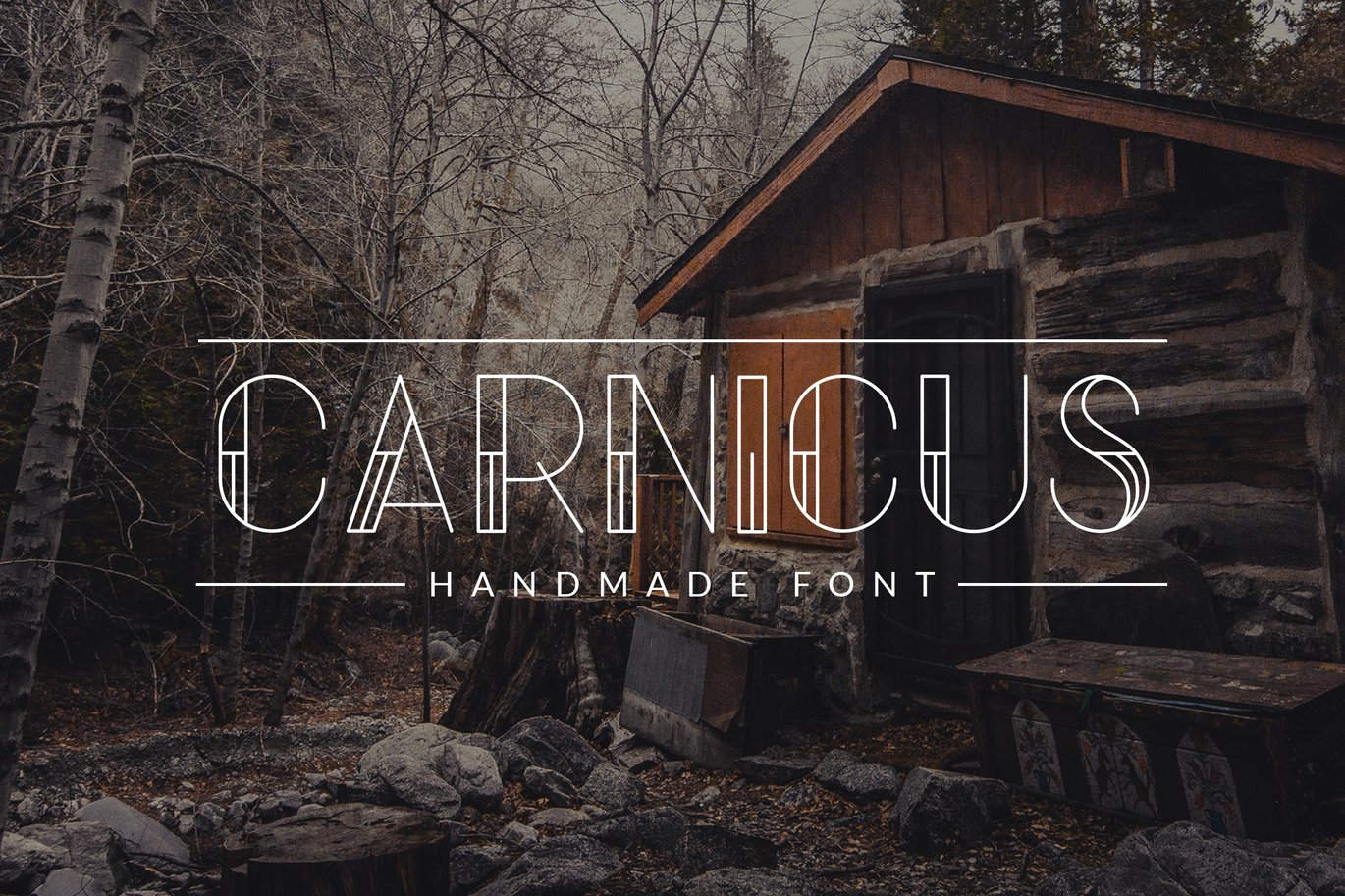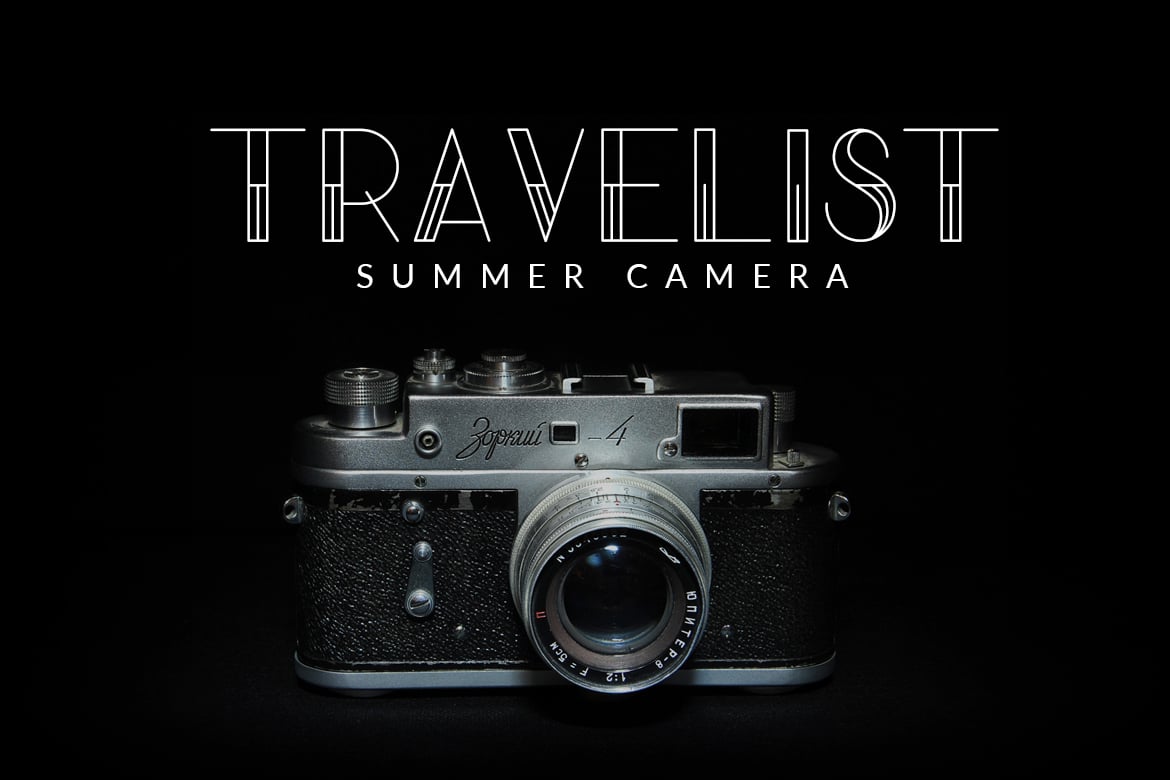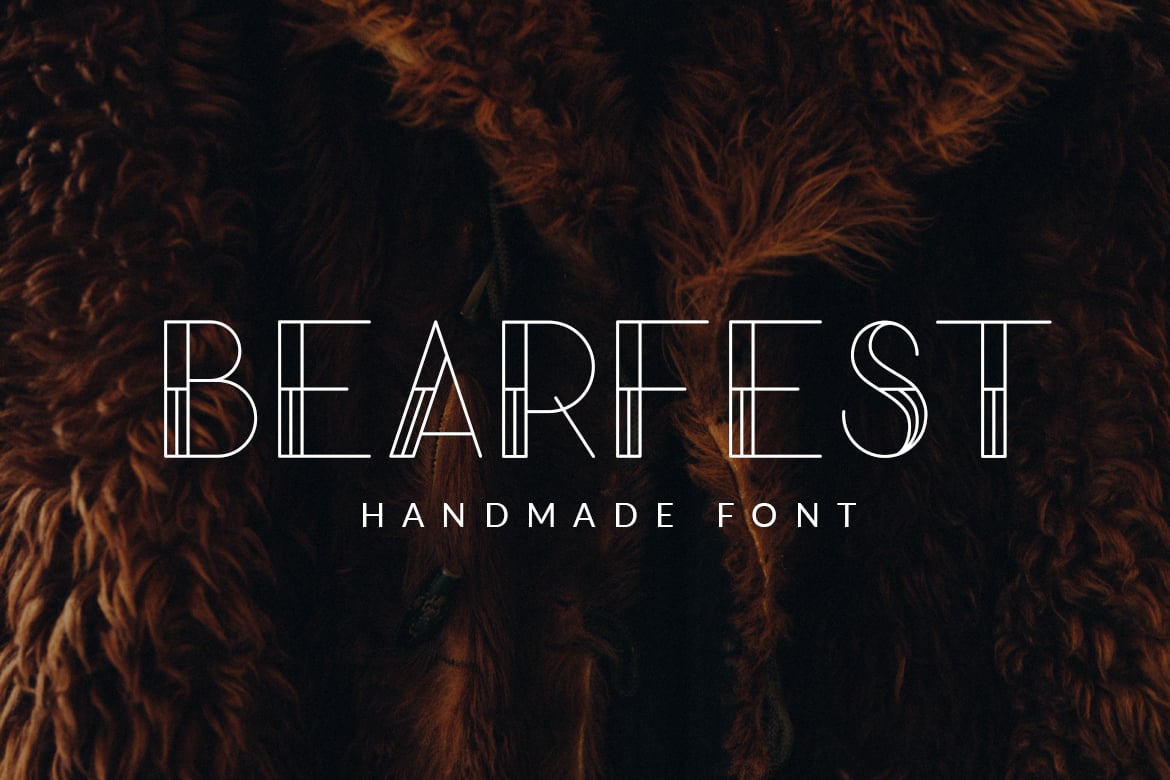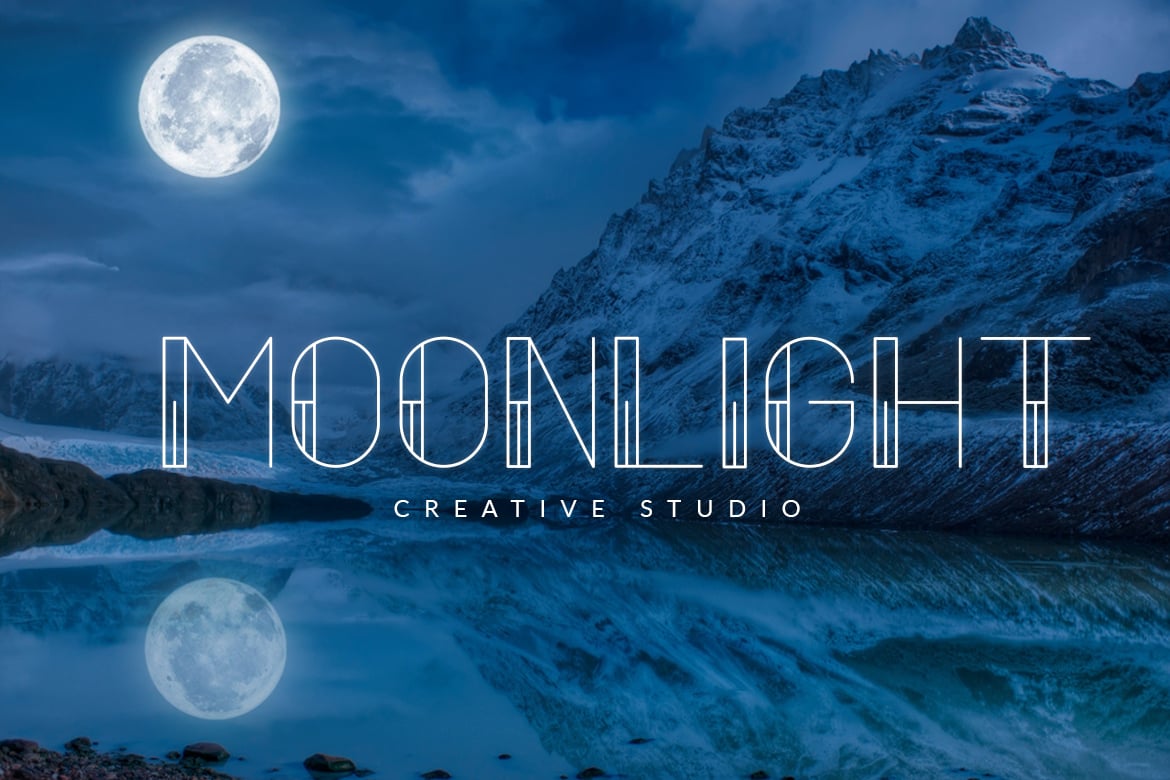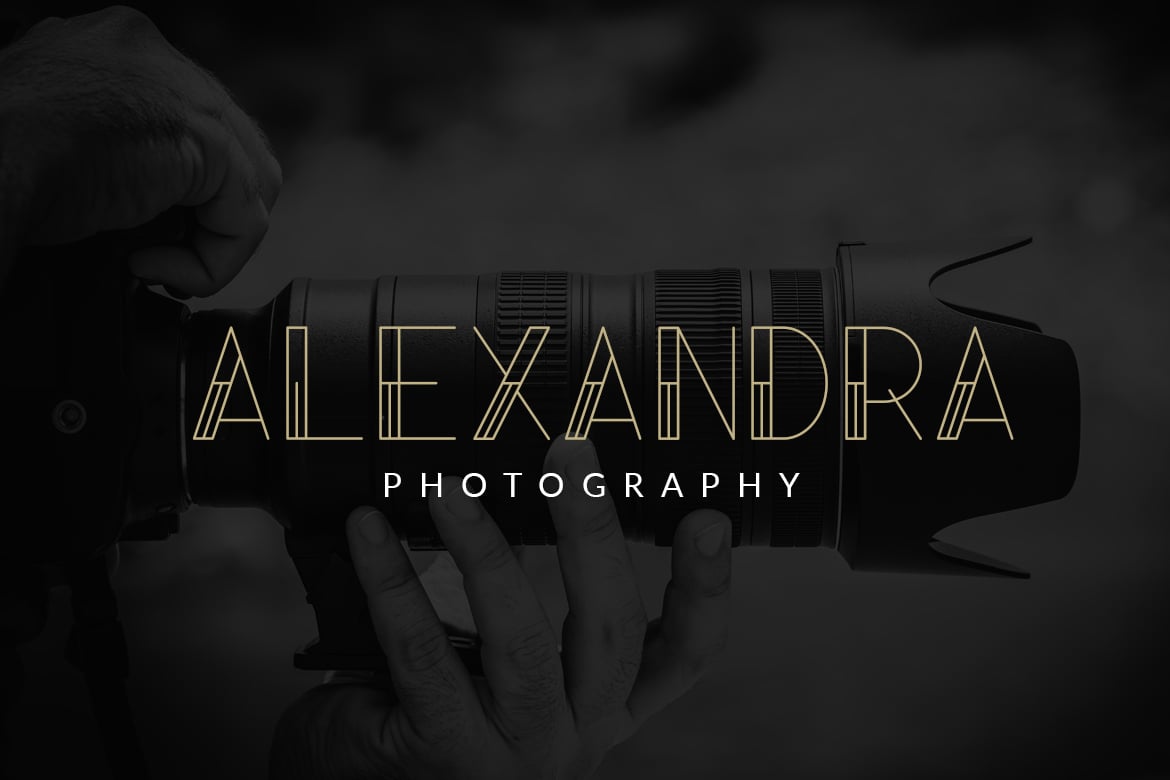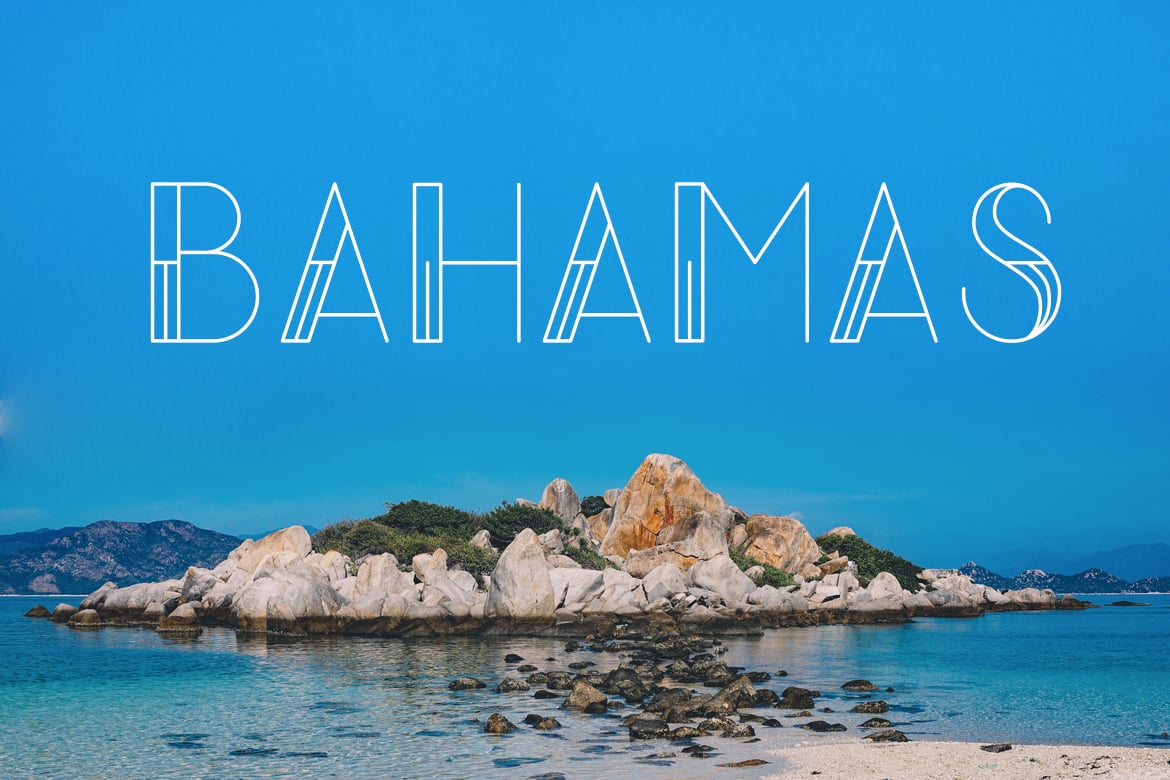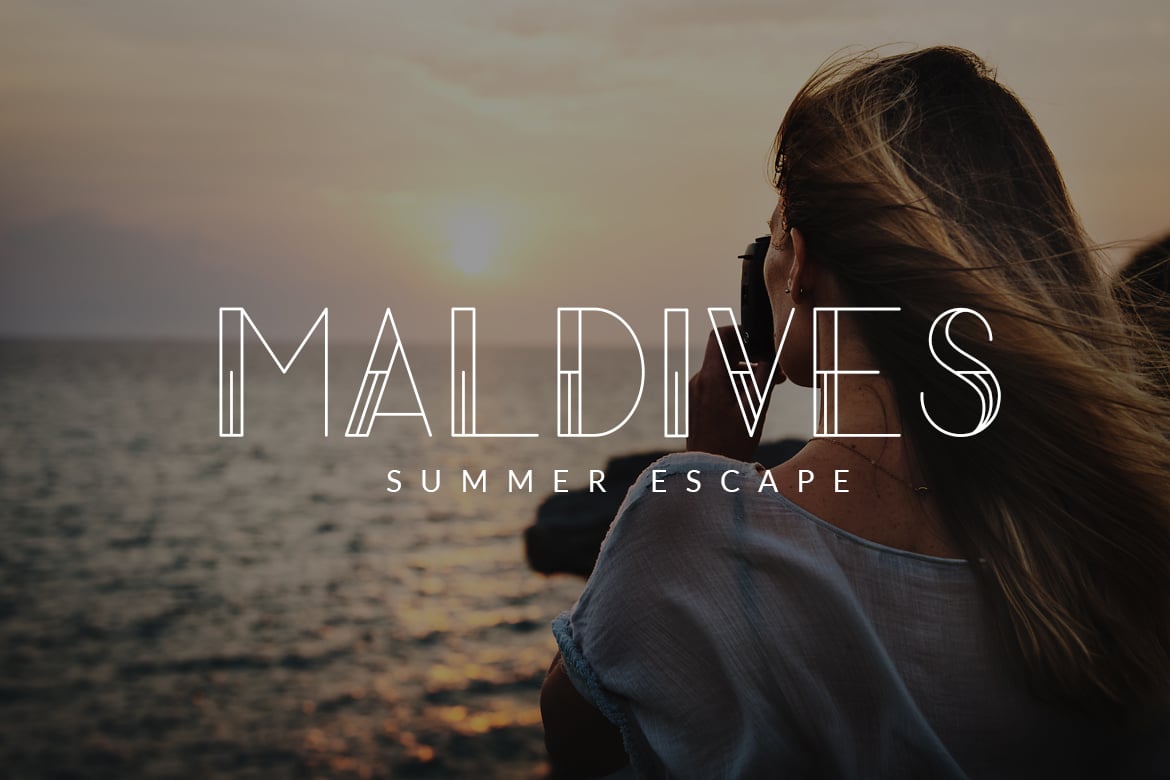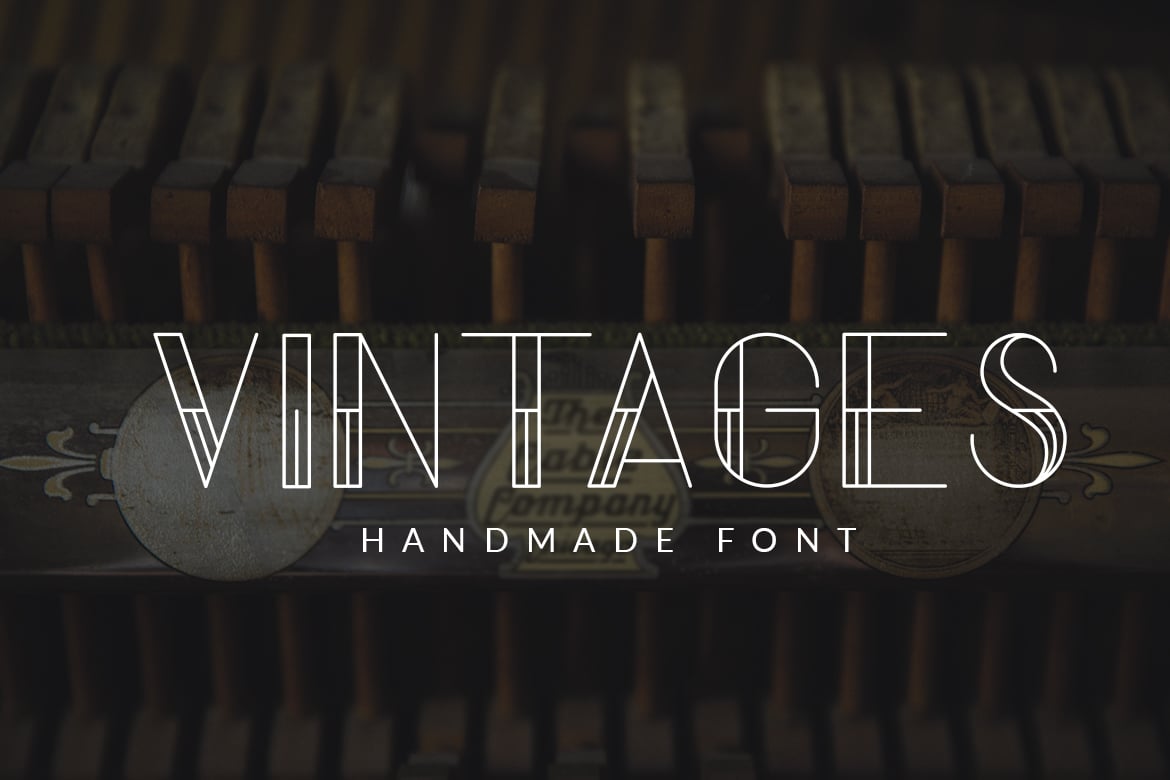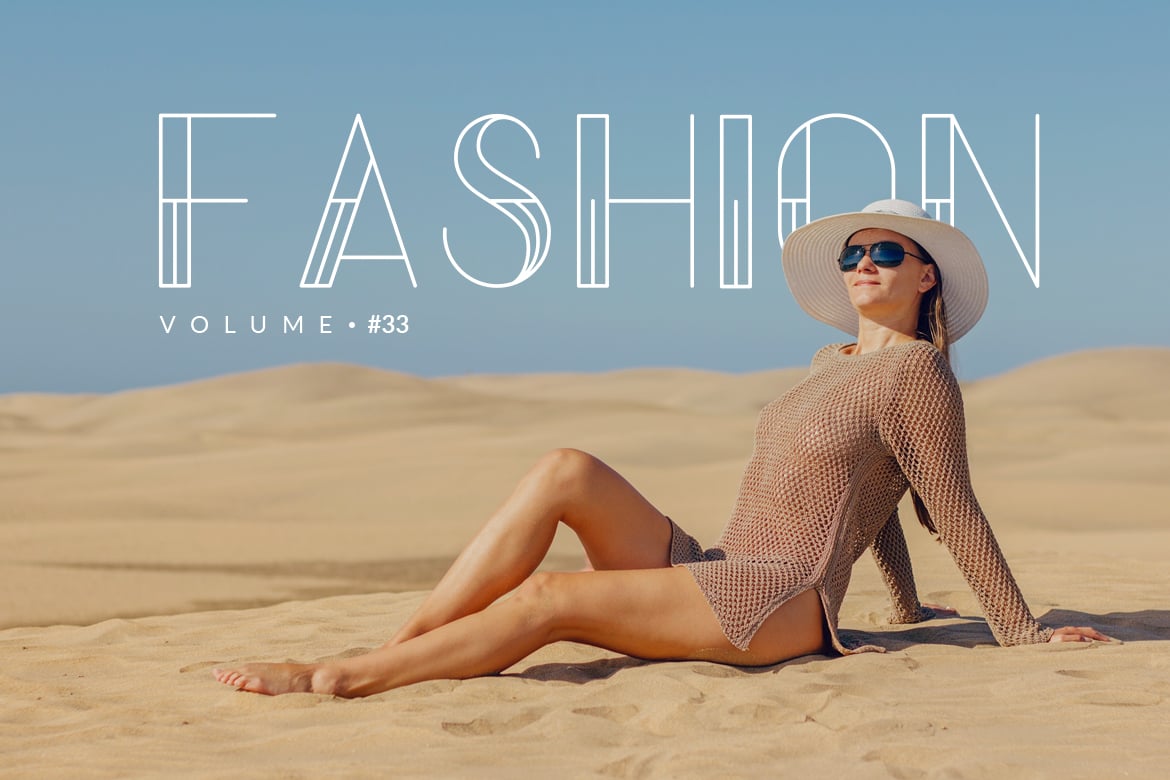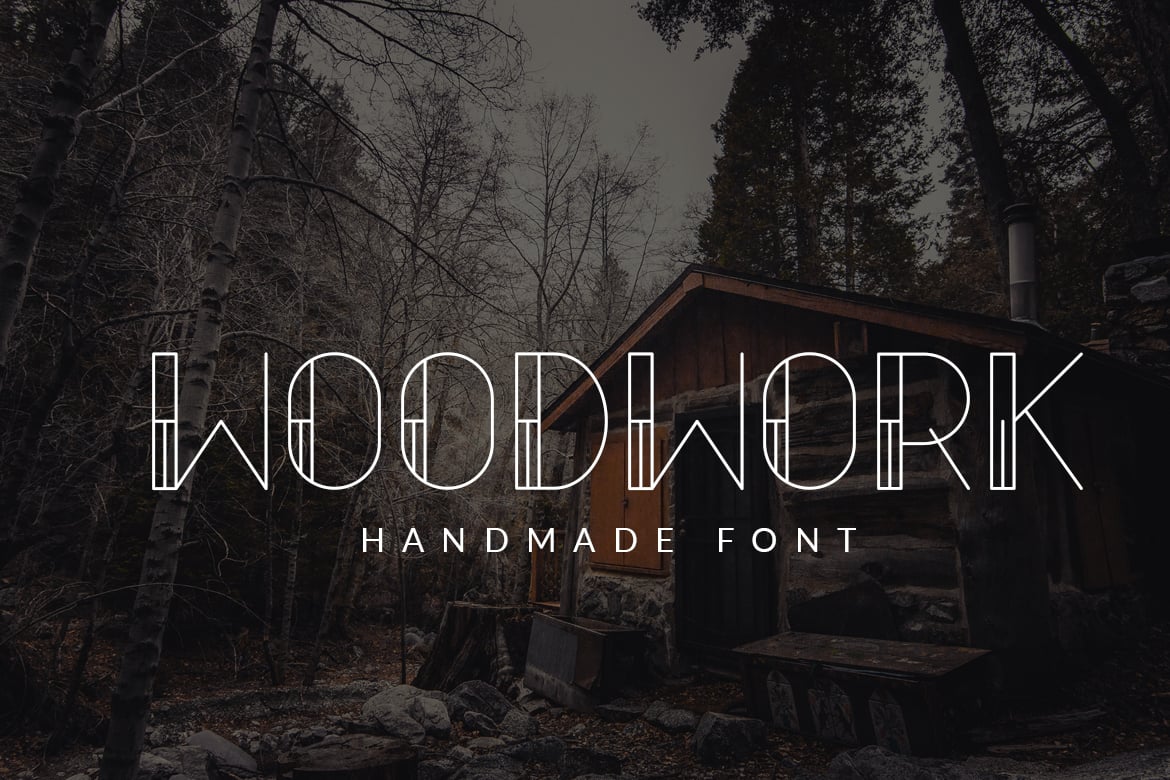
Carnicus – Font Type
We Provide You one of the best Circus Inspired Font type. Best match for logos, header, Titles, Prints & other Creative process possibilities.
Create a Extraordinary Typography / lettering results by using Carnicus – Font Type